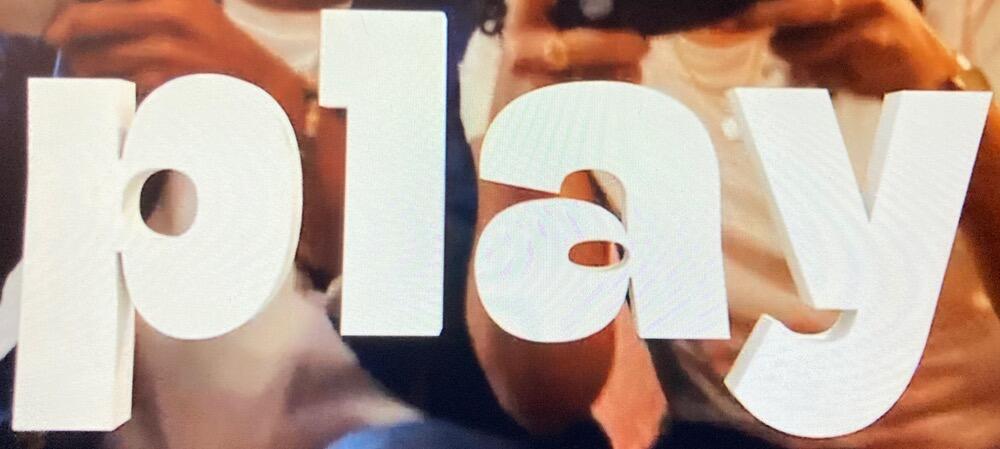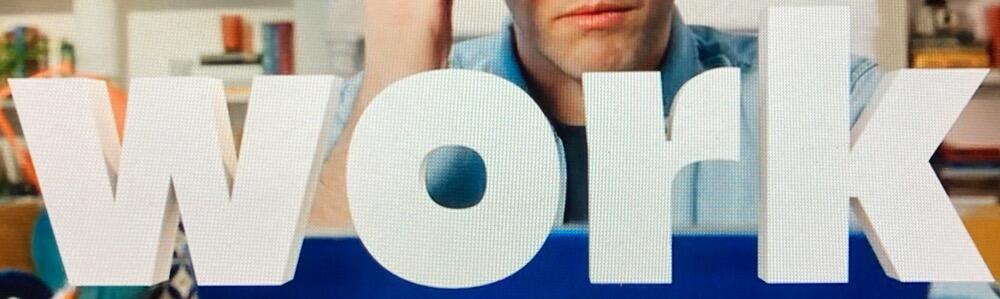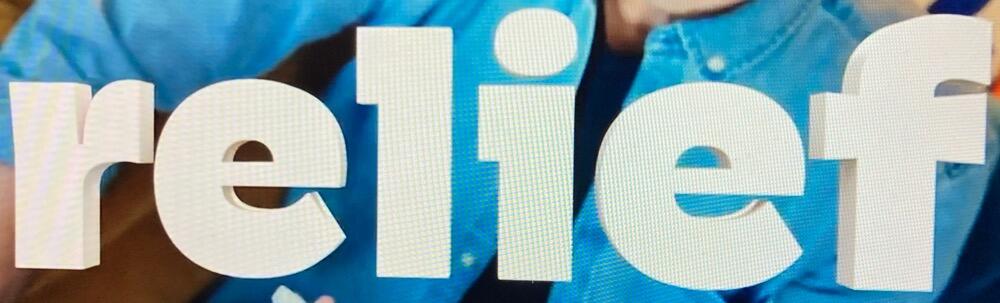
Looking for the font that is currently being used in a TV commercial for Bausch & Lomb Blink Eye Drops
I recently saw a commercial on TV for Bausch & Lomb Blink Eye Drops. The font emphasis font has a fun and casual look, and I especially like the letter "a" in the word "play." The font, especially the "a," would be distinctive in a logo I'm working on.